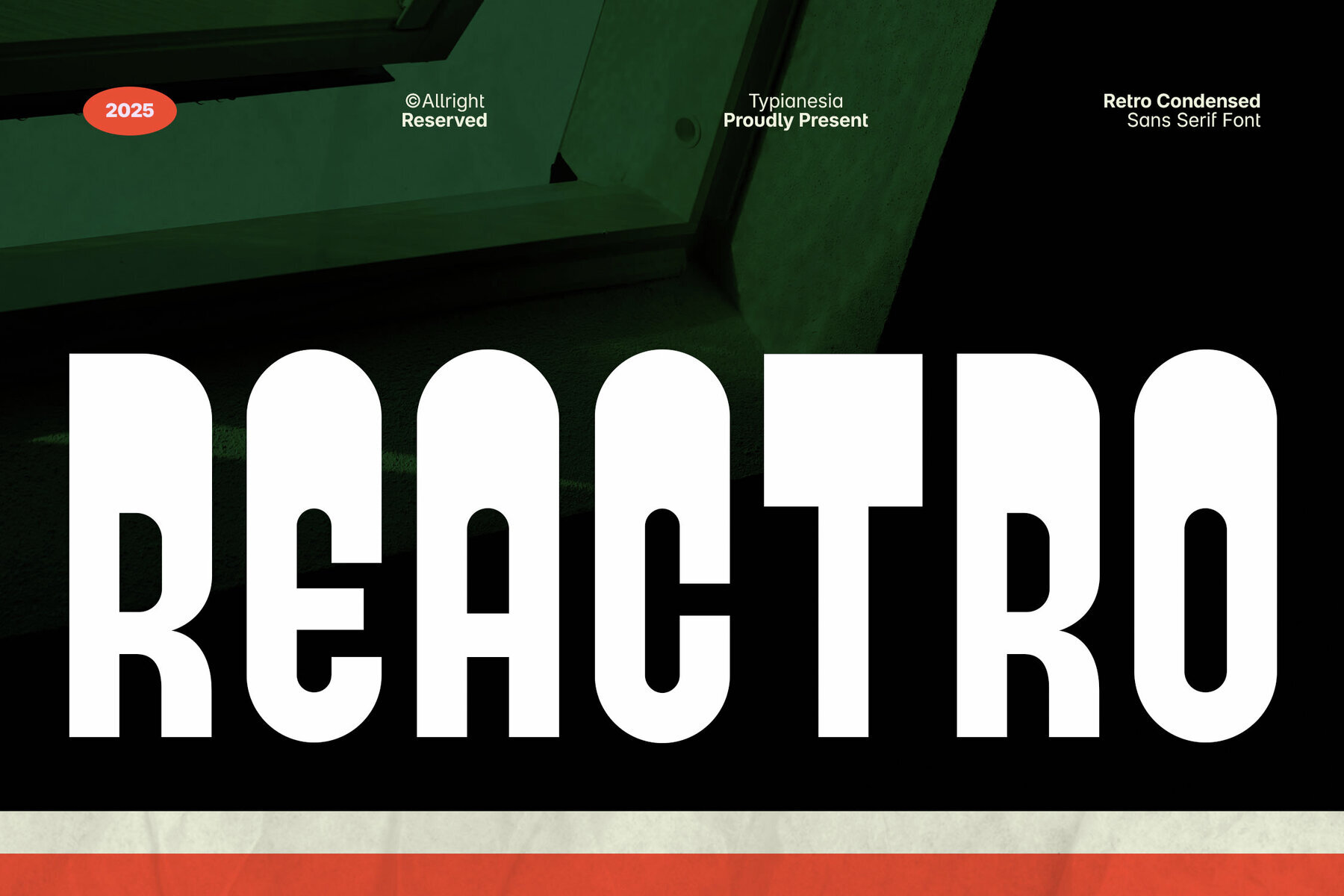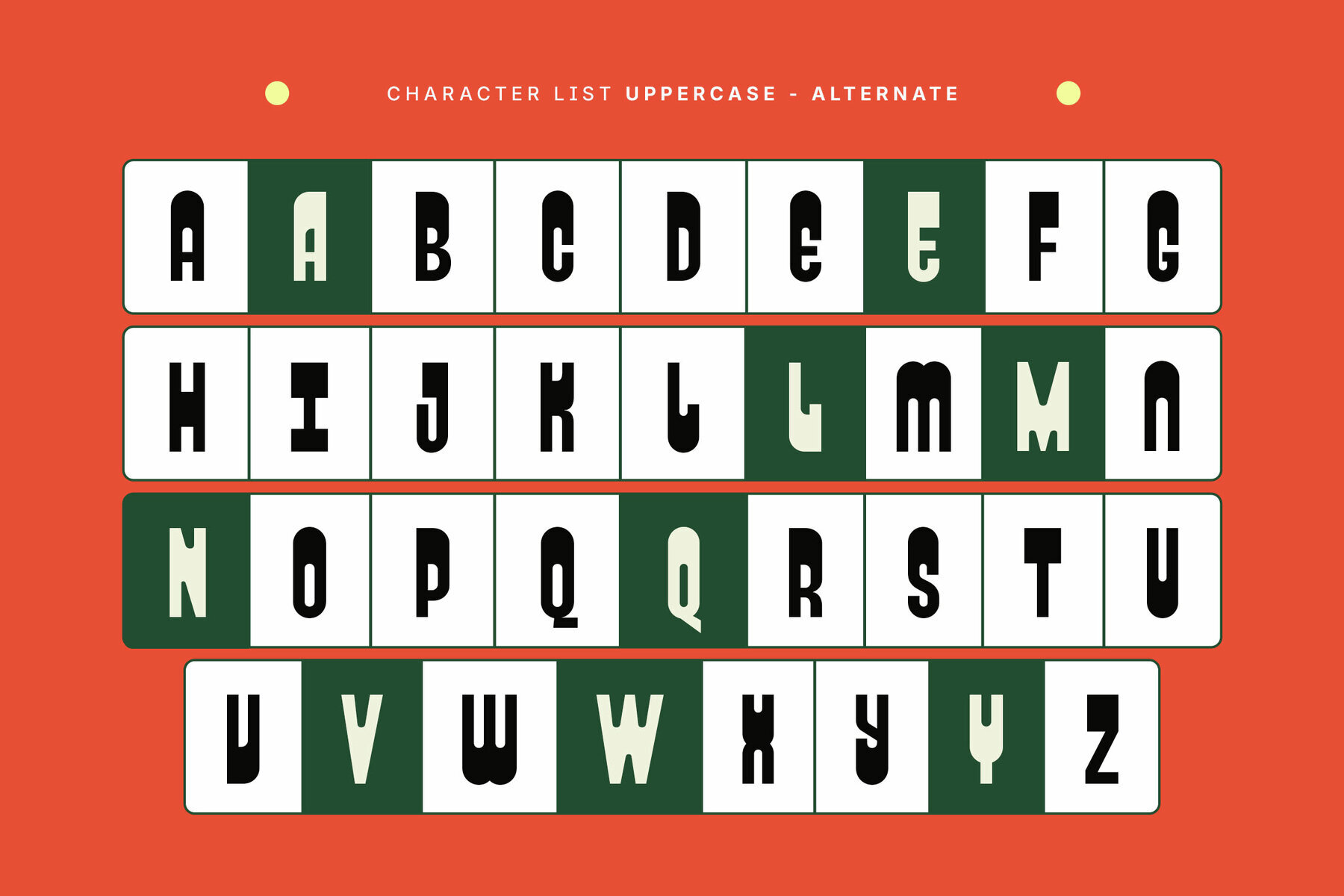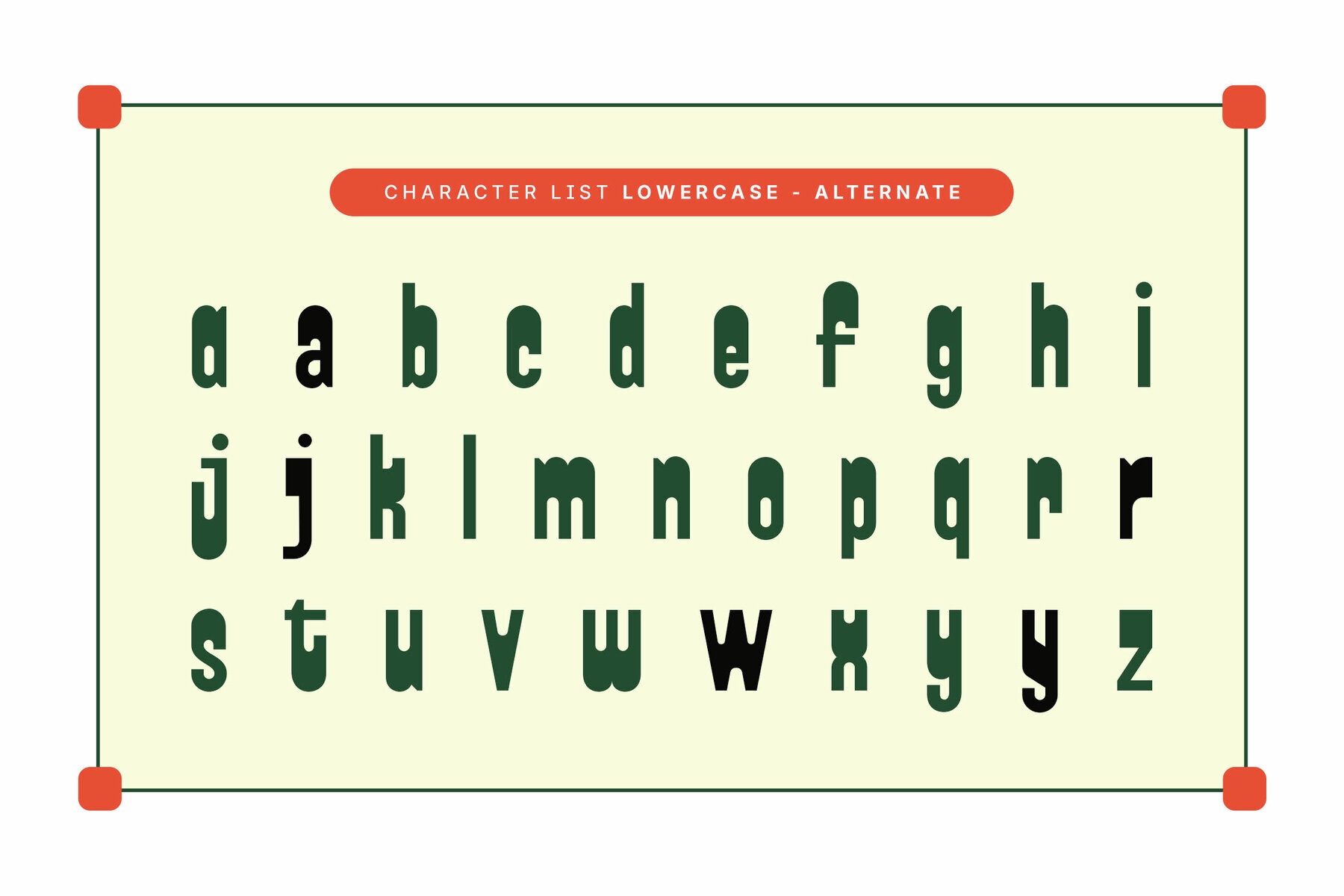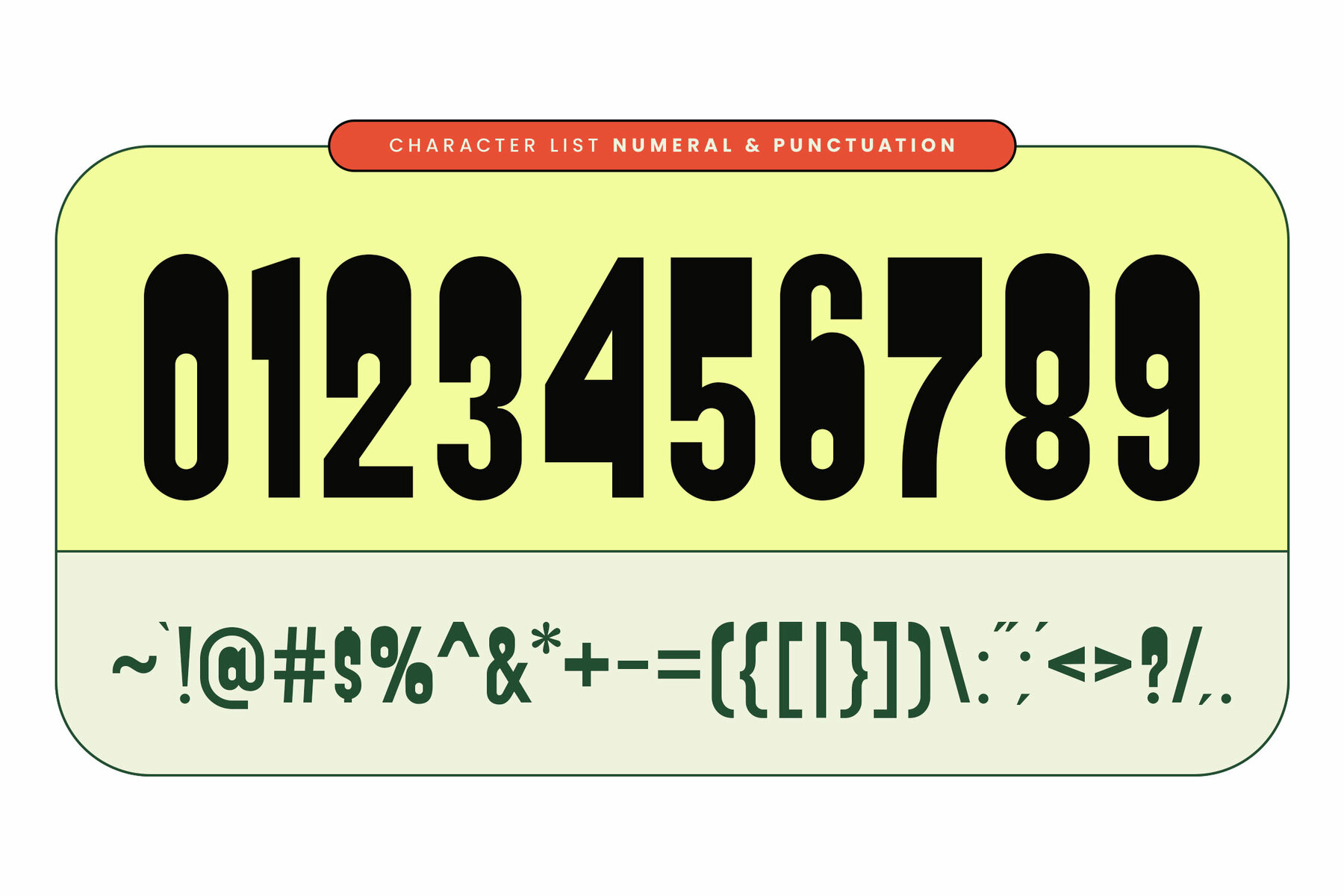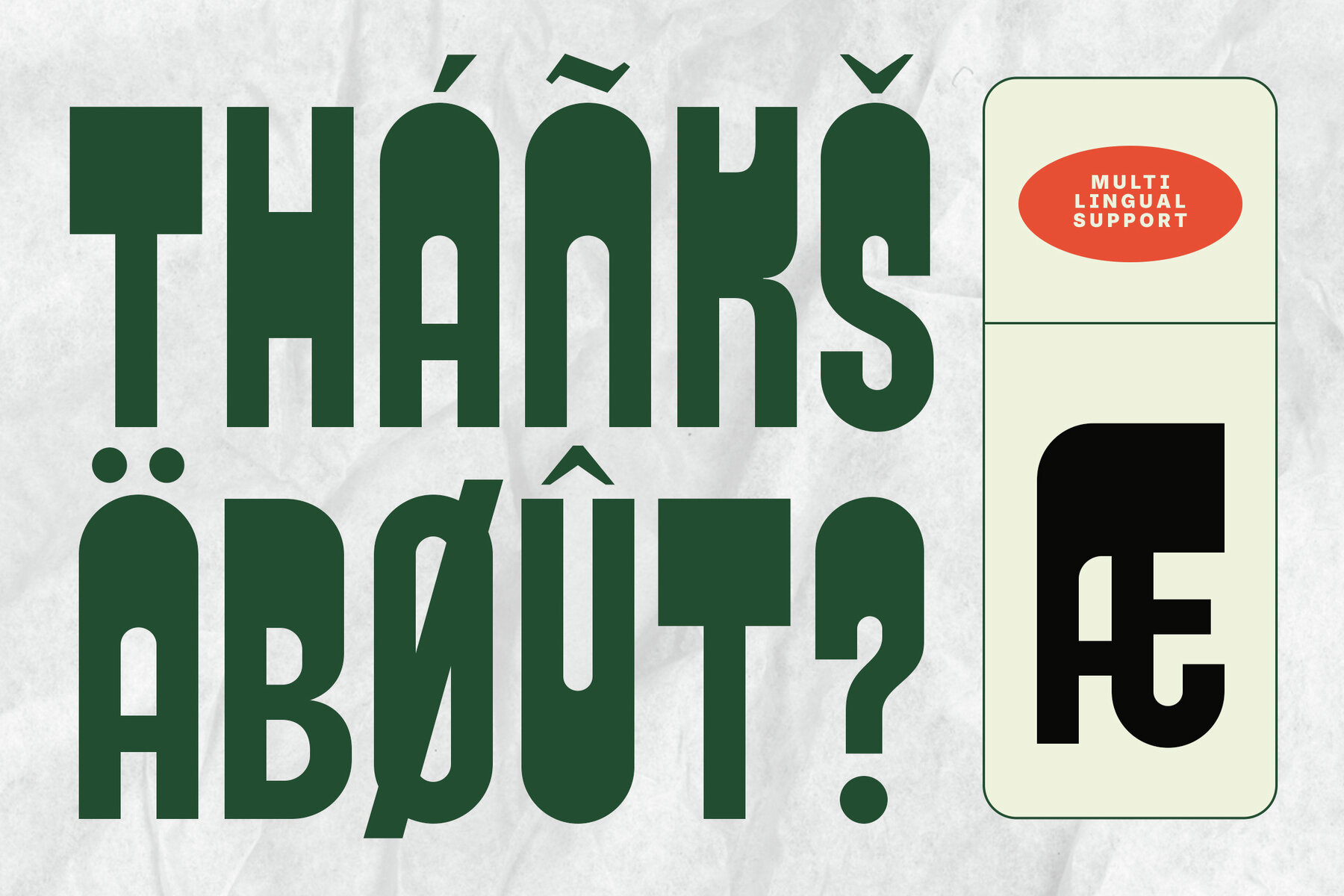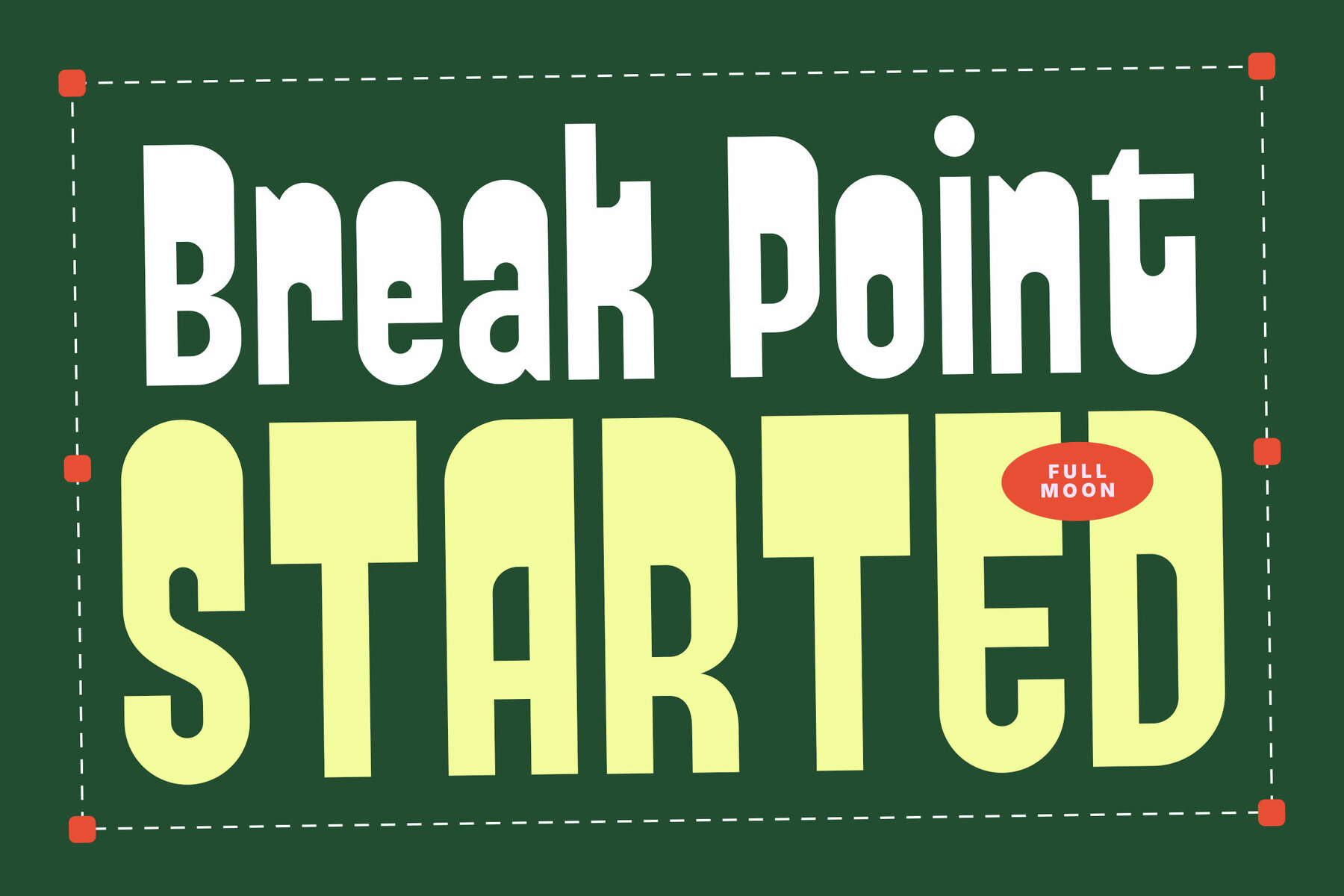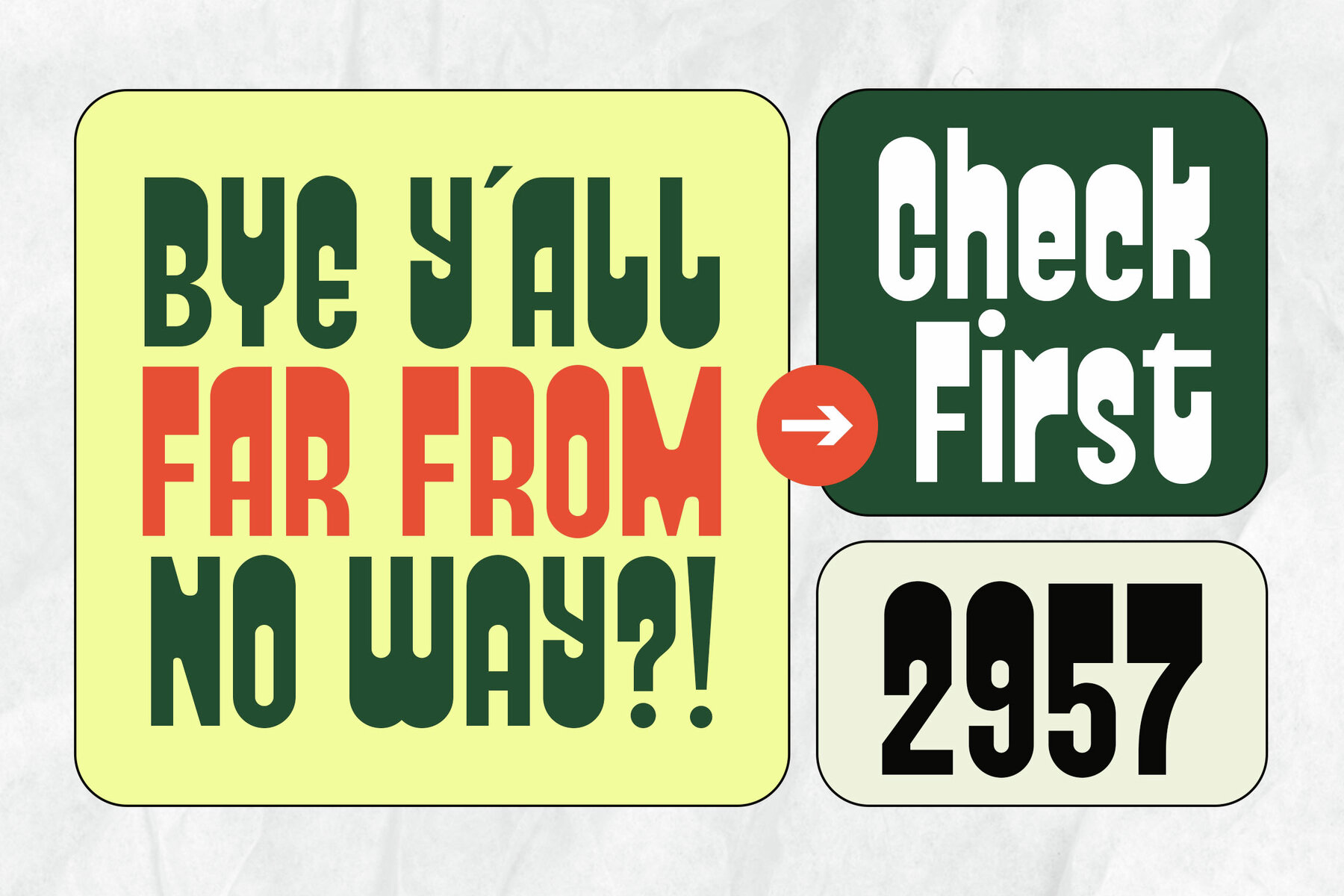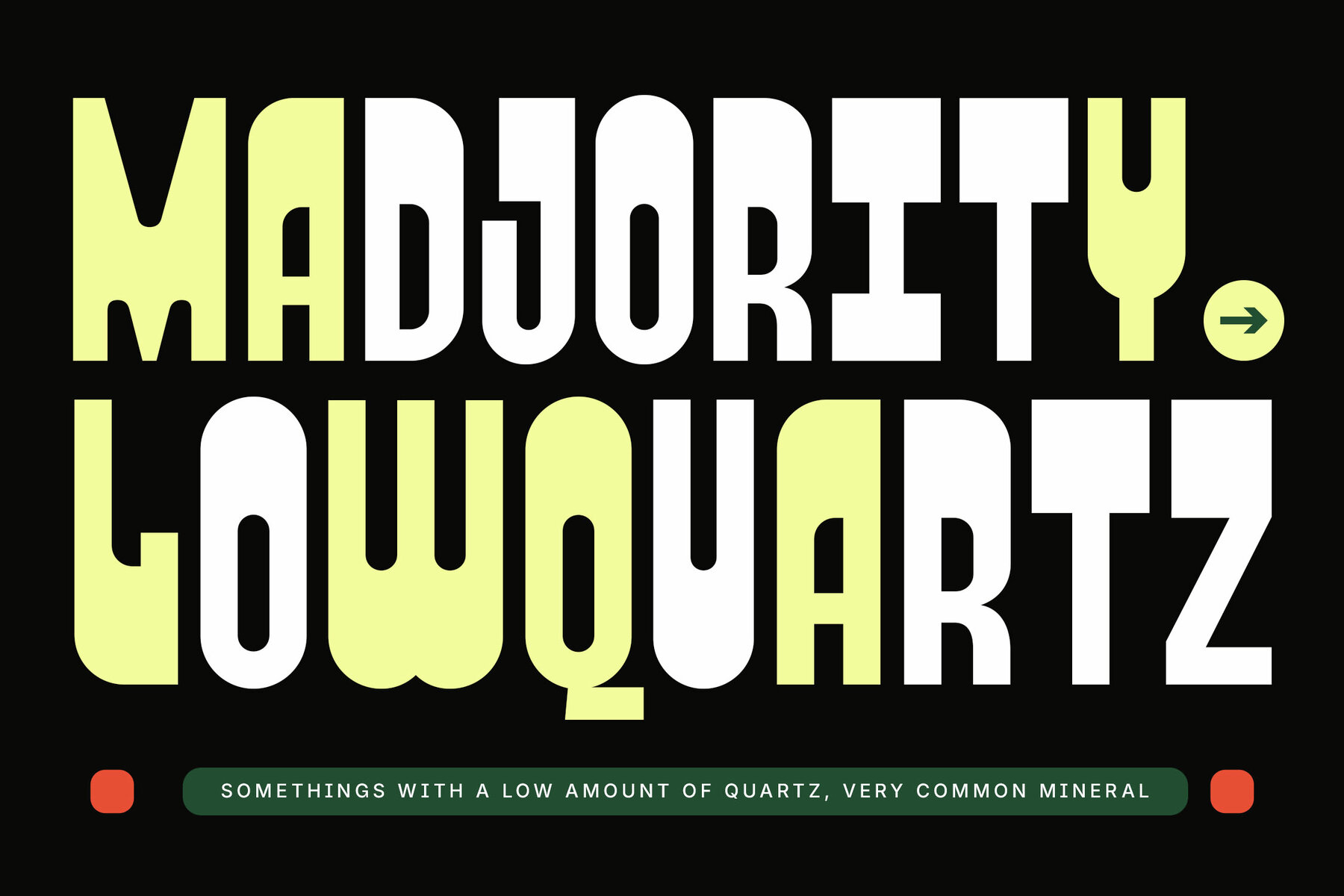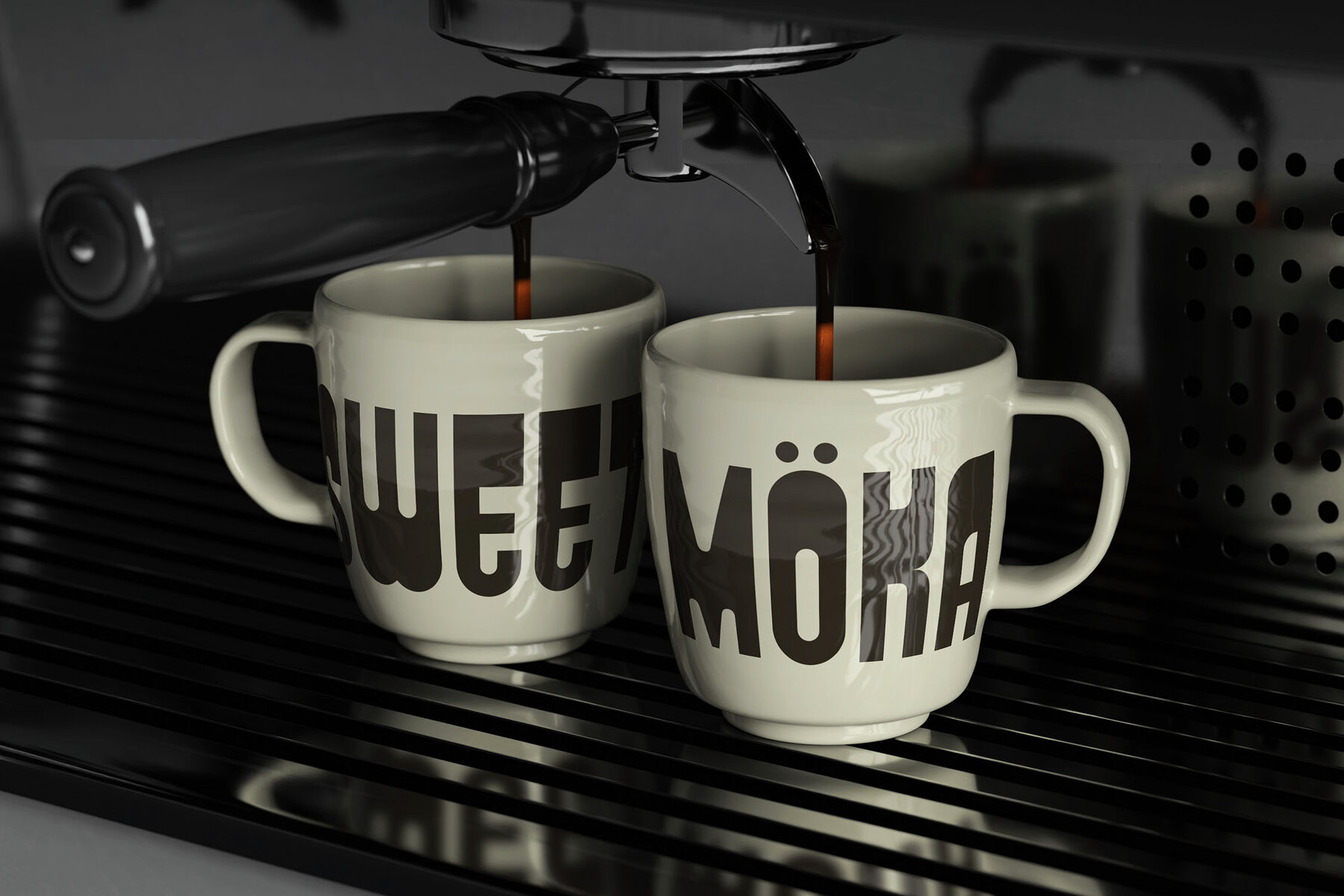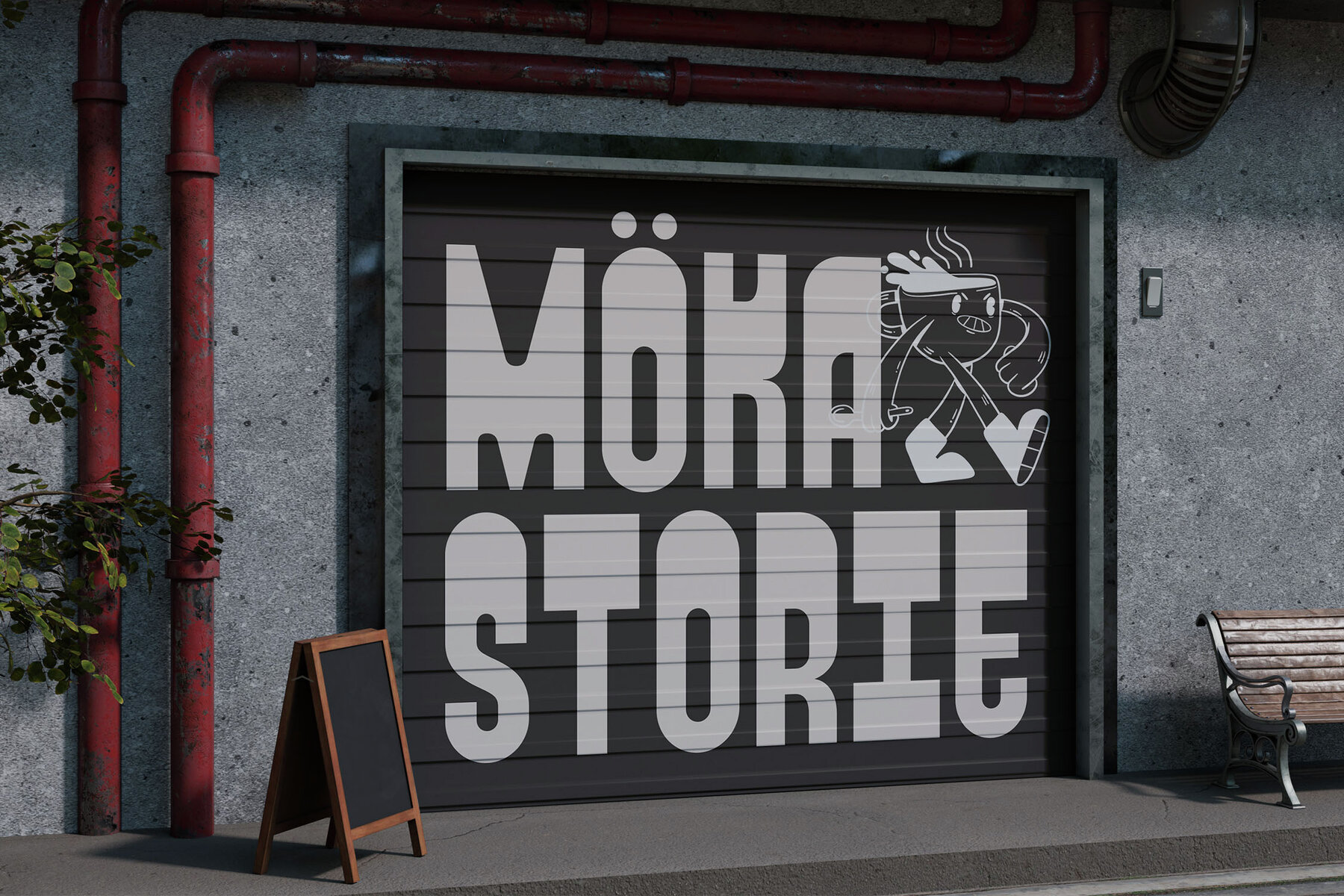
Reactro Font
Reactro Regular
Typography serves as a vessel for personality within design, and Reactro is a testament to this principle. This bold, display sans-serif font captures a unique retro vibe, offering an exquisite blend of vintage charm and contemporary design. Reactro's solid, condensed forms make it an ideal choice for a variety of applications, including logos, product packaging, posters, signage, and advertising. Features: Add Reactro to your font collection to infuse your designs with a bold, nostalgic flair.Reactro: Bold Retro Condensed Sans-Serif Typeface